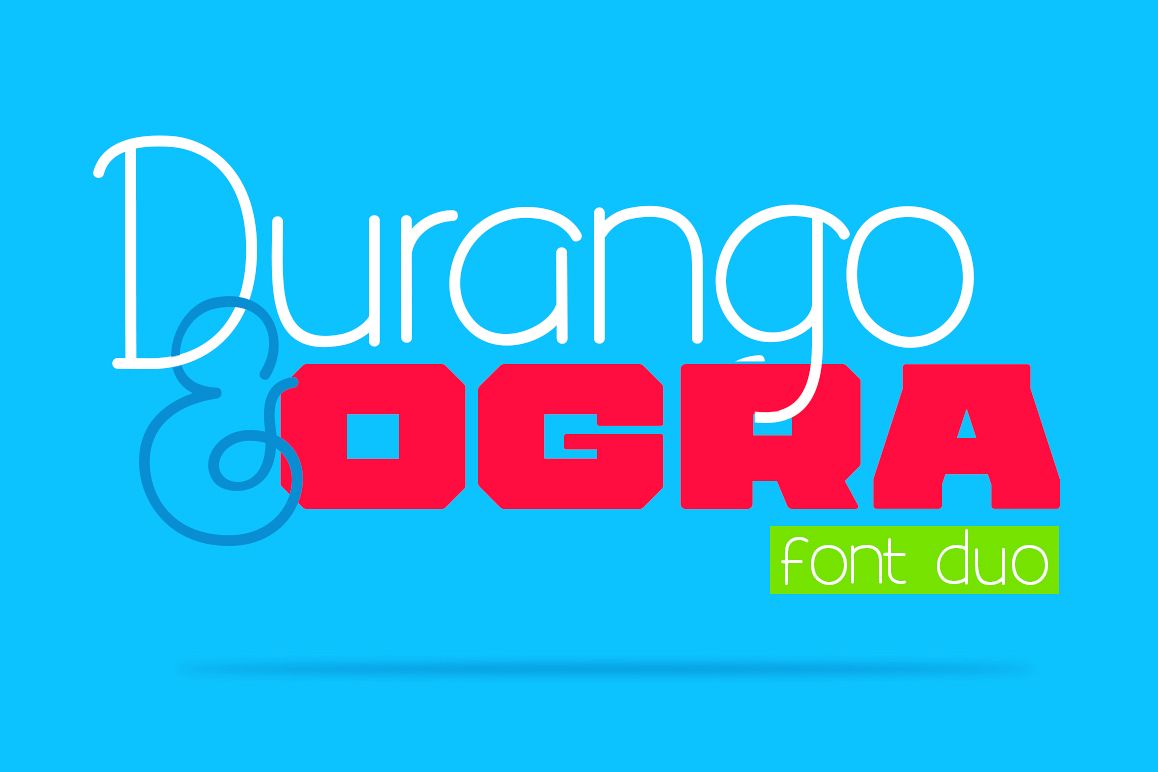
Durango & Ogra Font Duo
Durango & Ogra is the dynamic duo of typefaces, and like all great duos it is a combination of two contrasting typefaces that work harmoniously together. Durango is thin and handmade with flourishing alternates and ligatures, while Ogra is heavy, geometrik and industrial. As many of you might have experienced, using too much of any typeface can make work look bland and visually unappealing. If you use too much of an industrial typeface, the work can look too corporate and cold. Likewise if you use too much of a handmade script or sans work can look too whimsical and not too serious.When you combine the two you get designs that don't look too playful or too serious. combining contrasting fonts adds character and personality to design work. Durango & Ogra has been created with all this in mind. We trust you will enjoy using it as much as we enjoyed making it.As always, comments likes and shares are much appreciated.